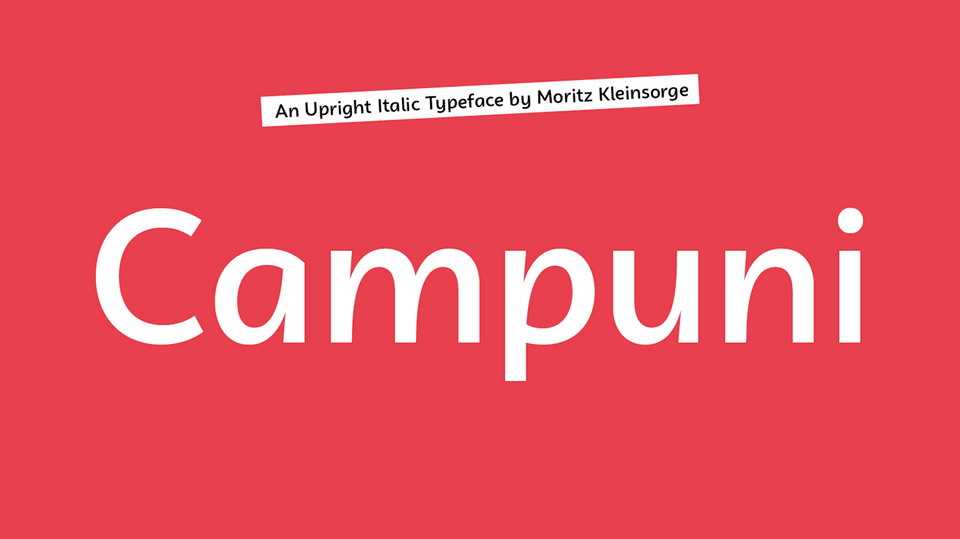
Download Campuni typeface, an upright italic font family in eight styles, inspired by the handwritten form of italics. Campuni’s style conveys warmth and friendliness, communicating a personal touch to its reader.
Designer: Moritz Kleinsorge